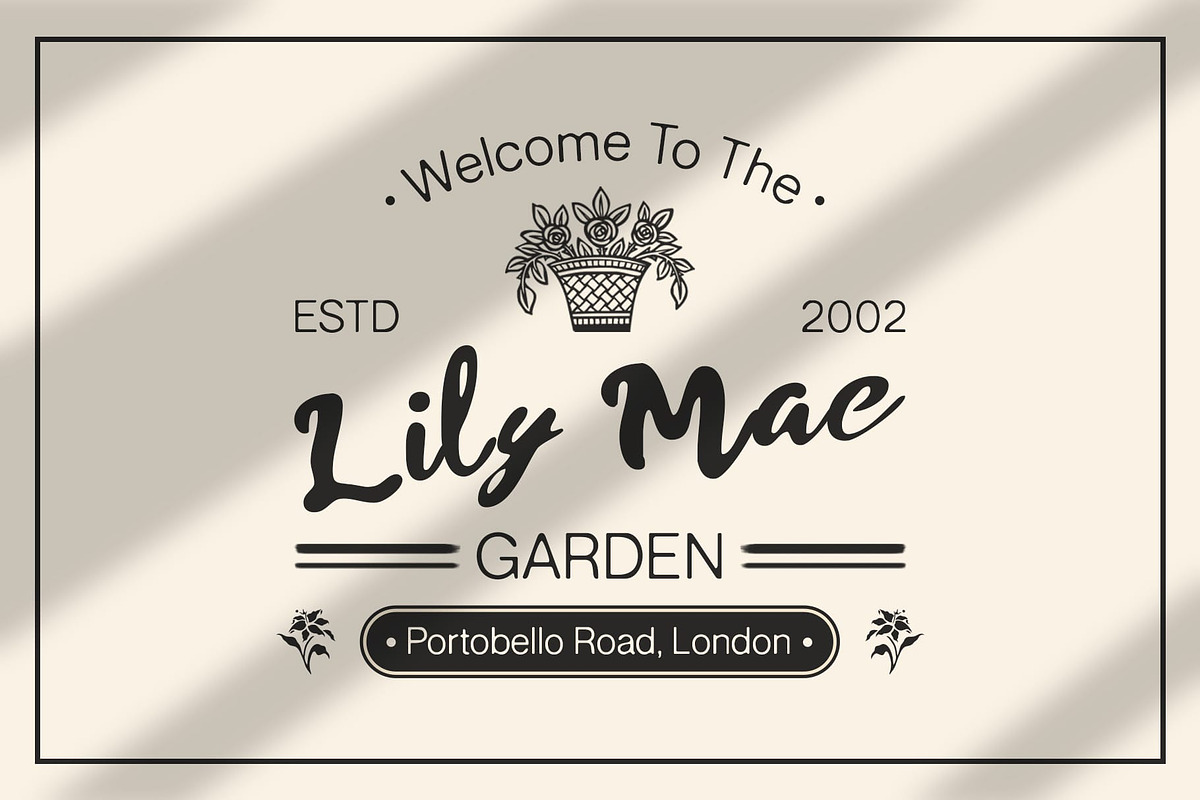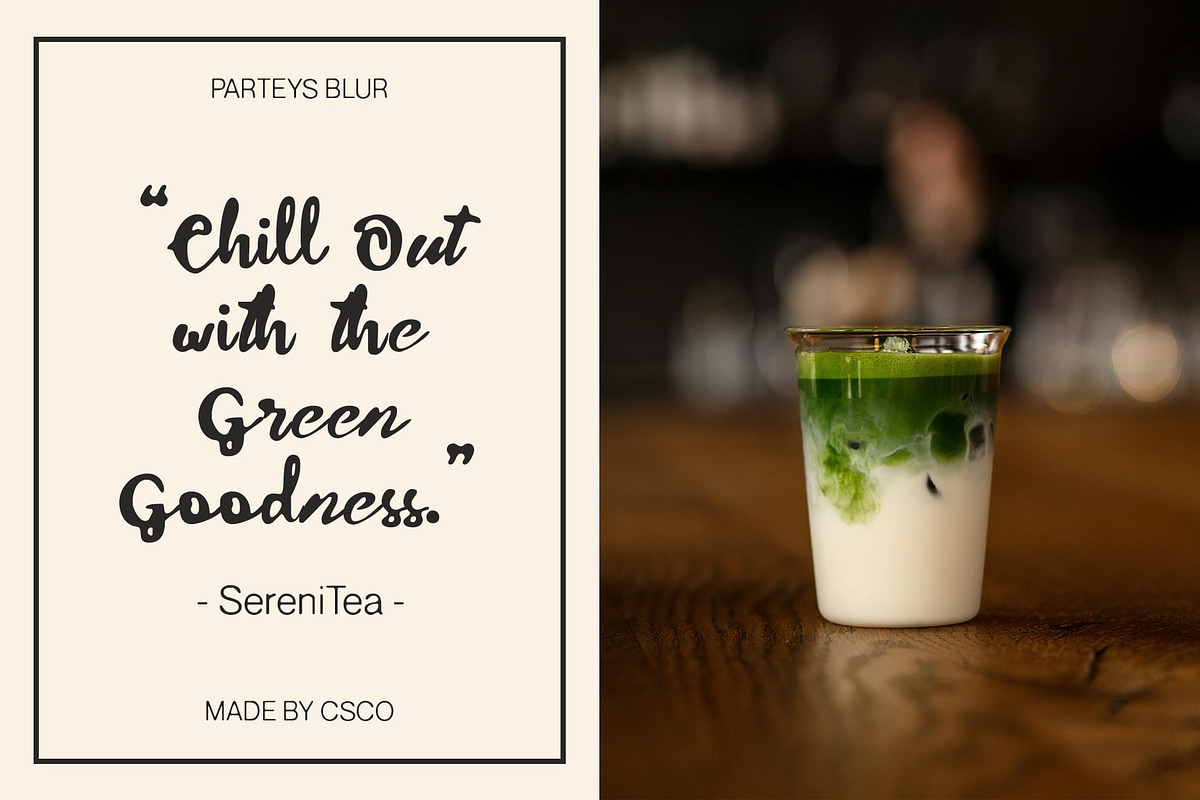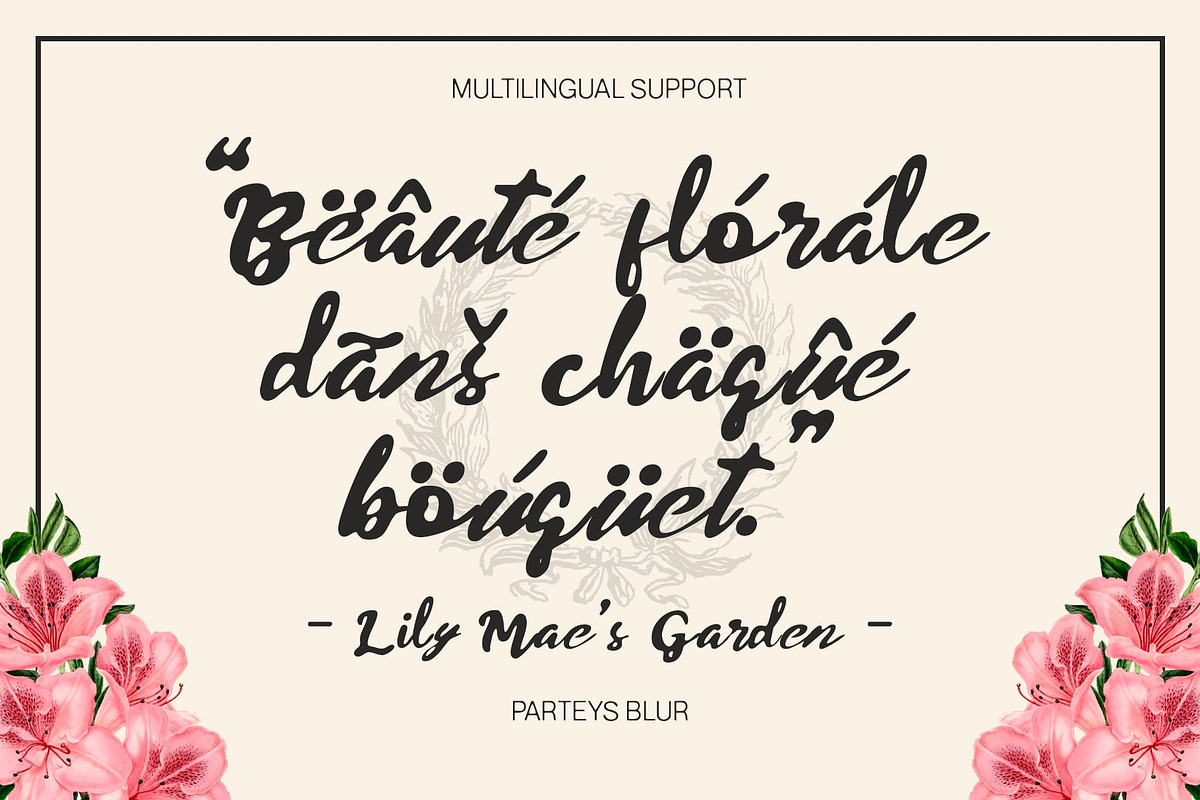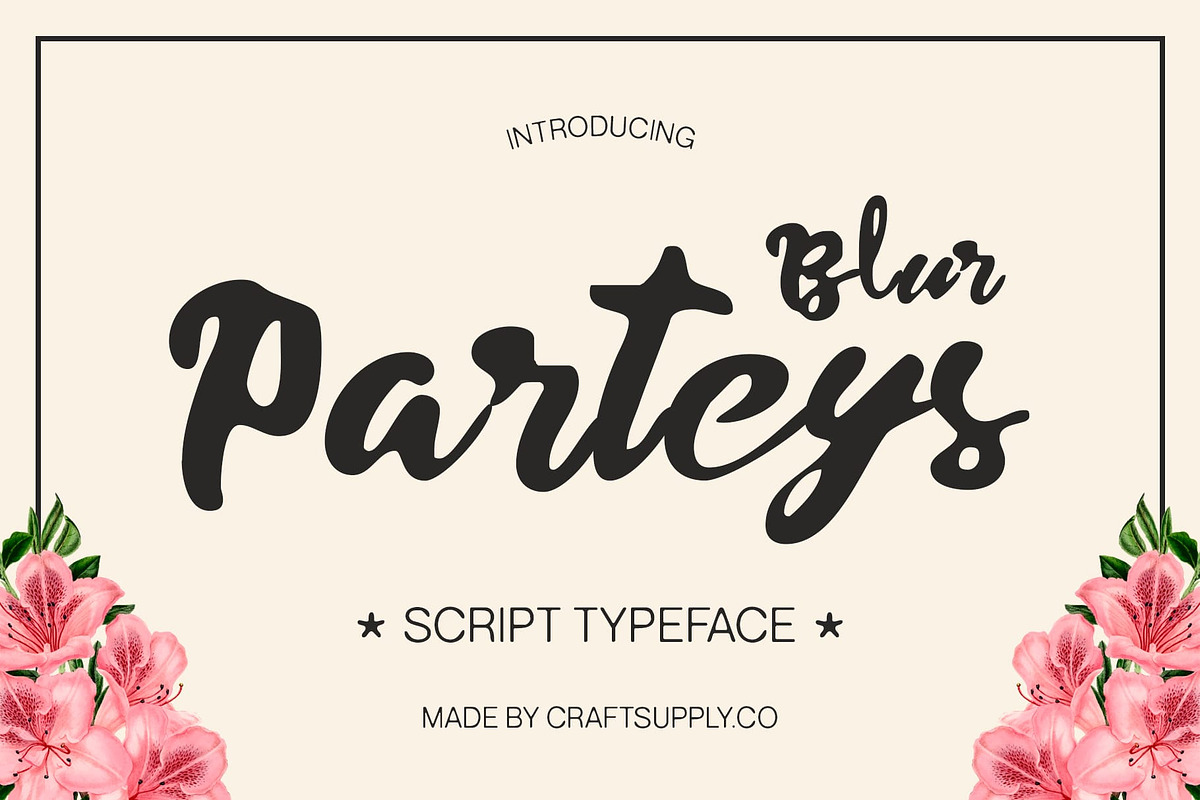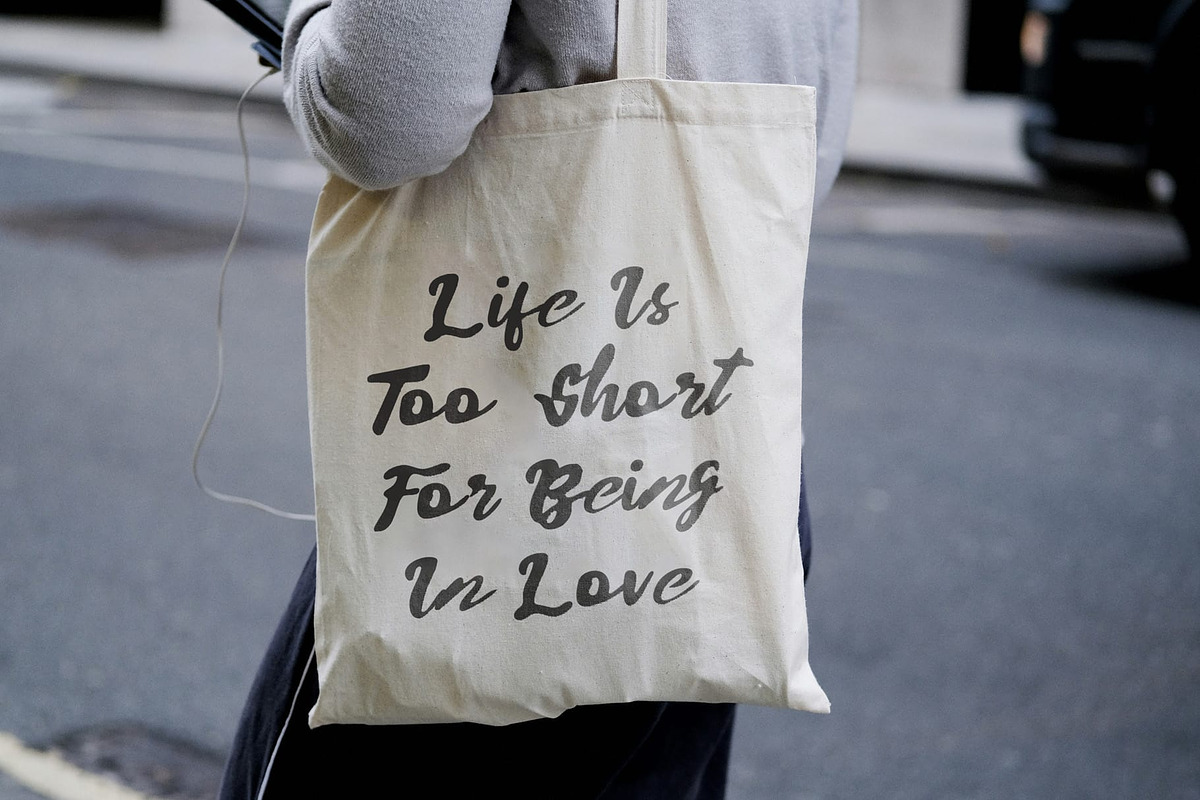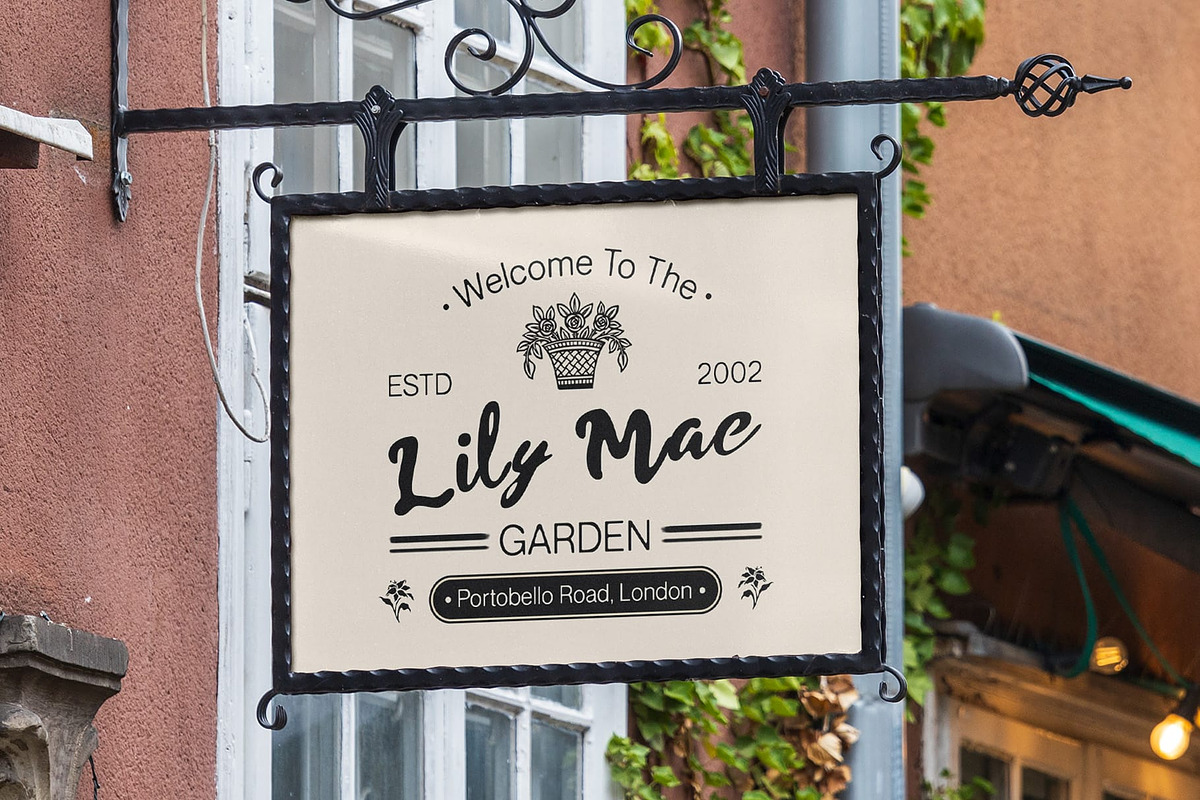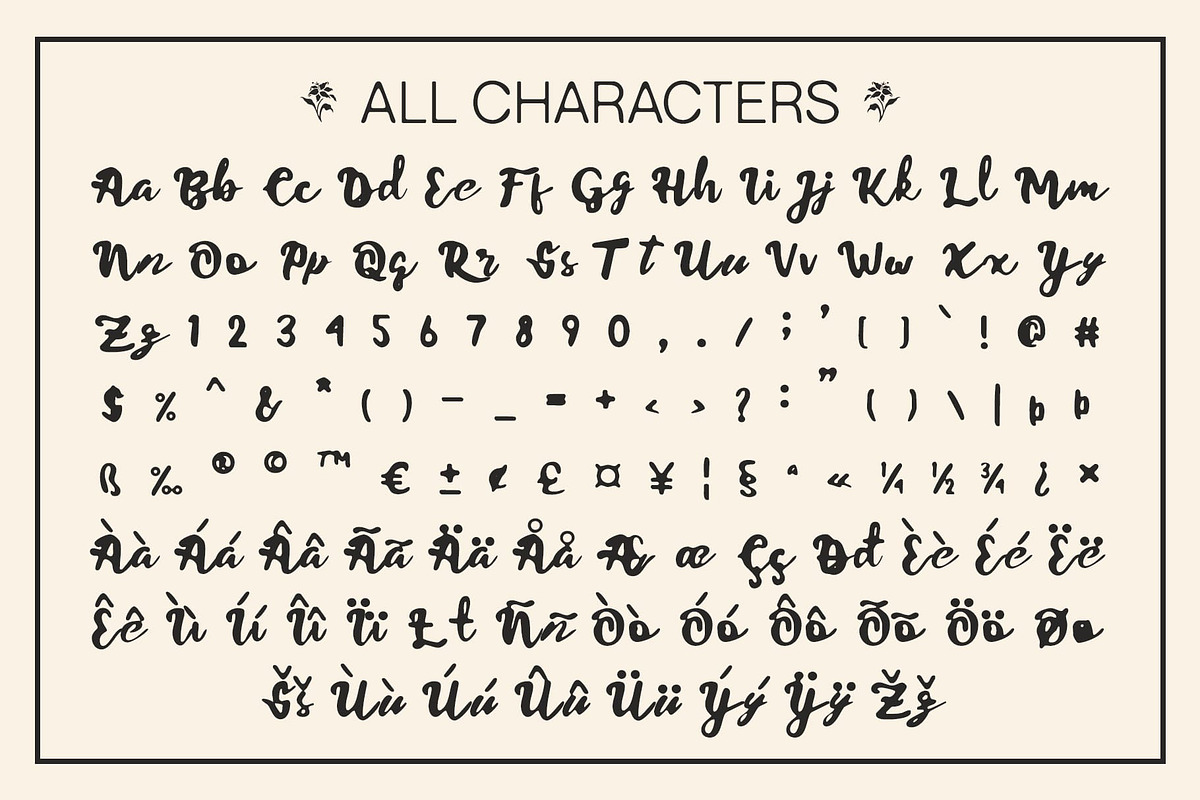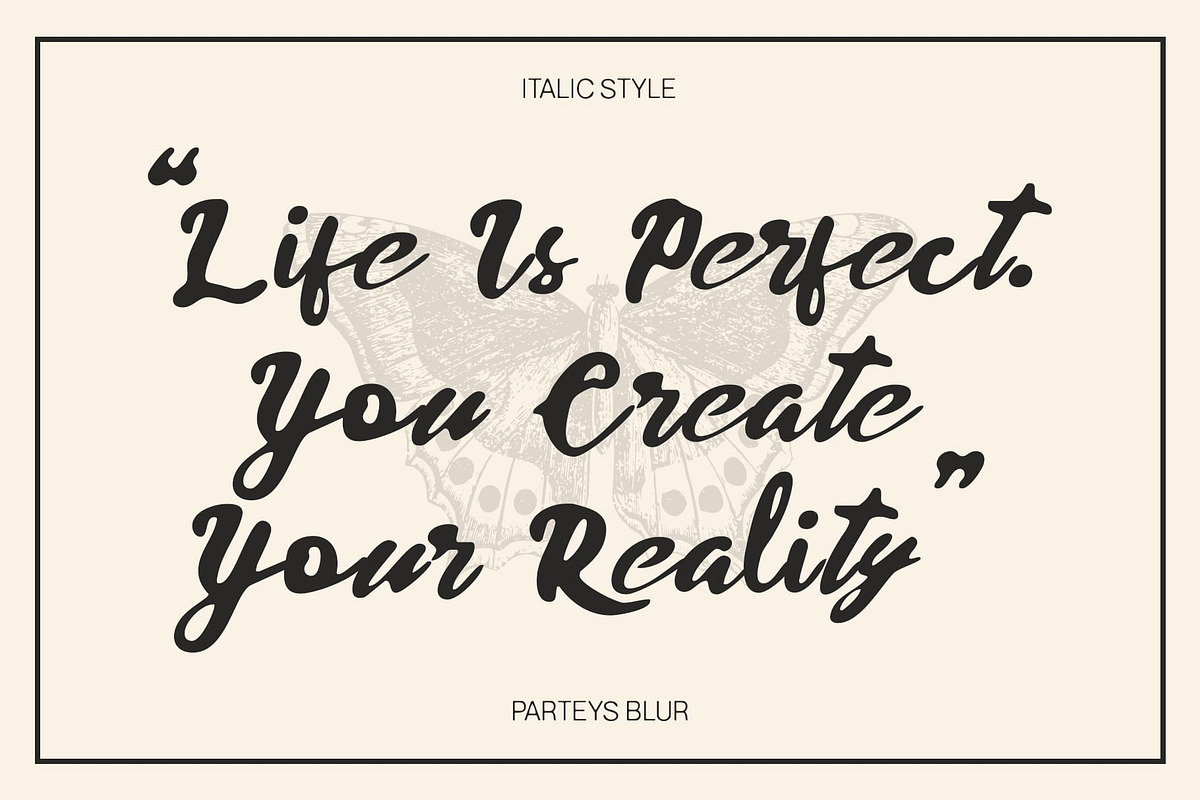
Parteys Blur
Parteys Blur – Script Font: Soft, Playful Elegance
Soft and Dynamic Brush Strokes Parteys Blur is a delightful script font characterized by soft and dynamic brush strokes that create a cute and playful impression. Each flowing letterform is designed to evoke warmth and friendliness, making it perfect for designs that aim to showcase a cheerful personality.
Enhanced Visual Dimension The added blur effect enhances the visual dimension of Parteys Blur, providing a contemporary artistic touch that makes it stand out. This modern flair adds depth to the font, as if the letters are gently moving or playfully dancing across the page. The interplay of softness and vibrancy gives Parteys Blur a unique character, perfect for attracting attention in any creative endeavor.
Versatile for Diverse Applications Ideal for a wide range of applications, Parteys Blur excels in contexts such as invitations, children’s products, and branding that seeks to appear sweet and engaging. Its charm and versatility make it suitable for everything from birthday party invites to playful branding campaigns, where a friendly and inviting atmosphere is essential.